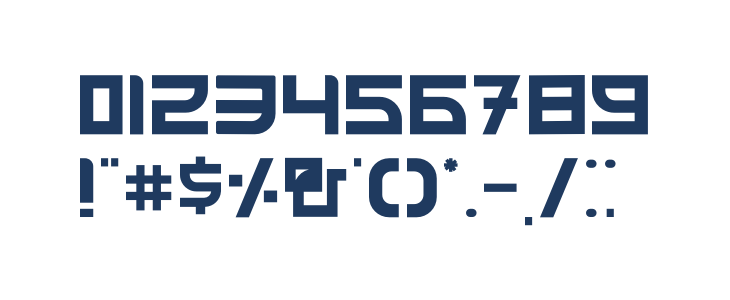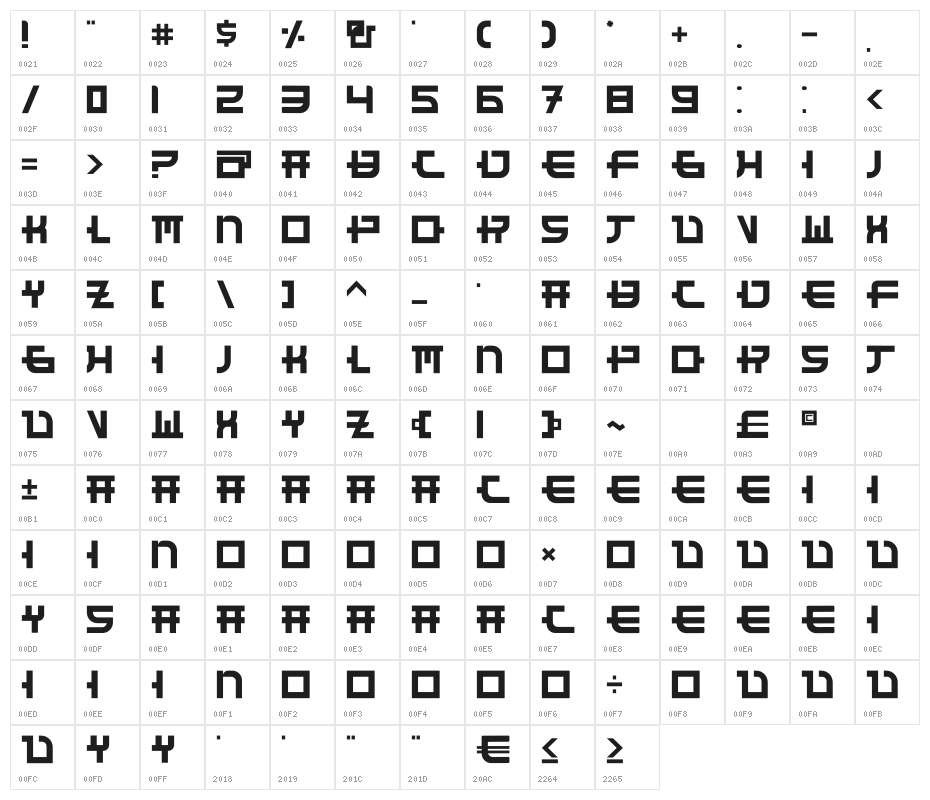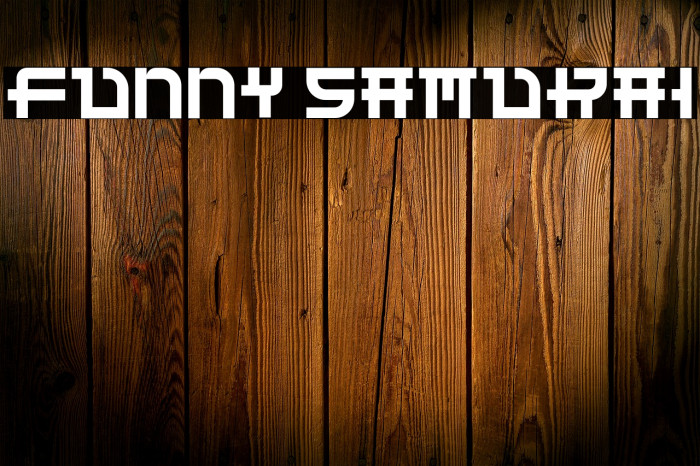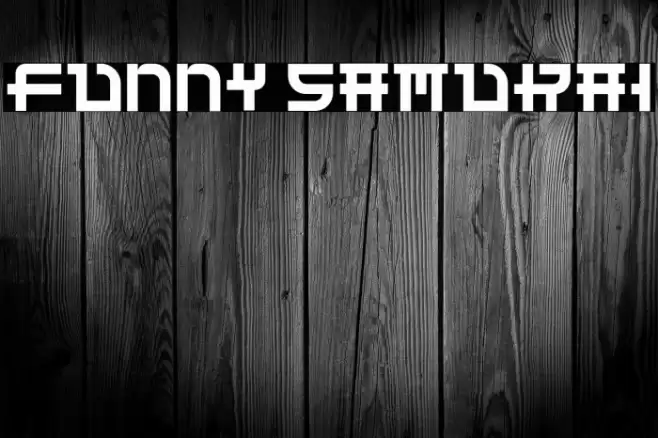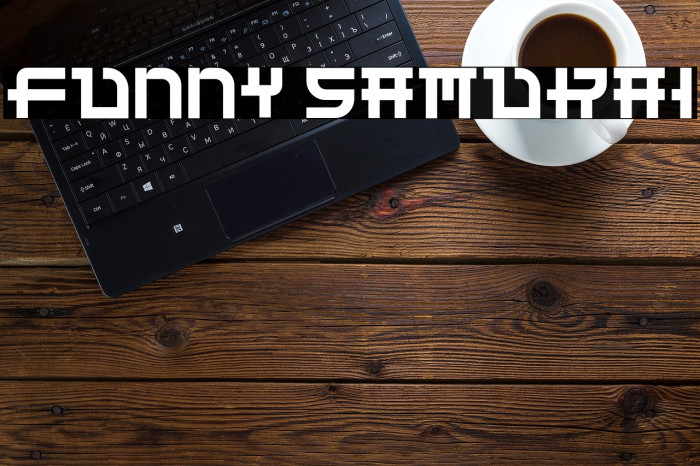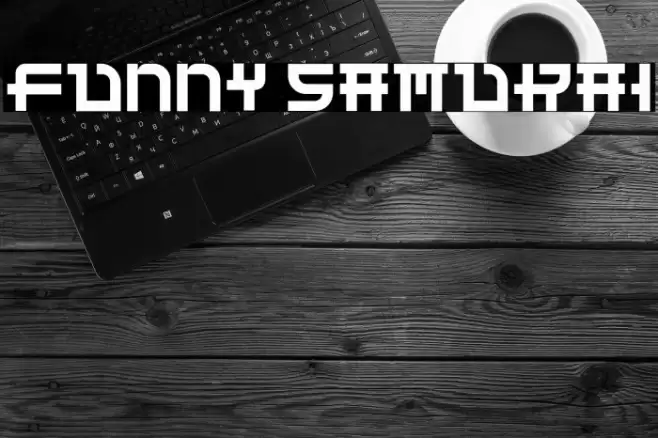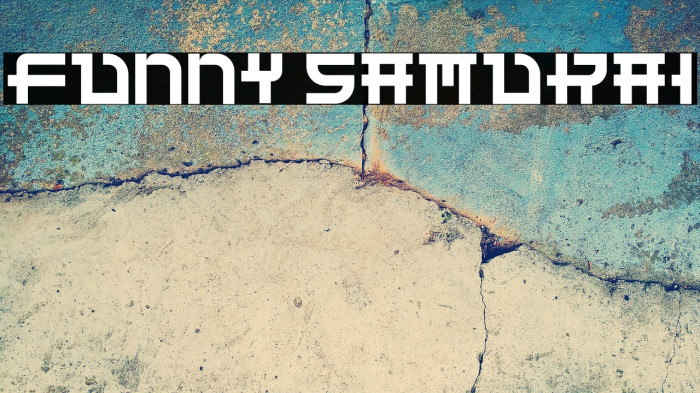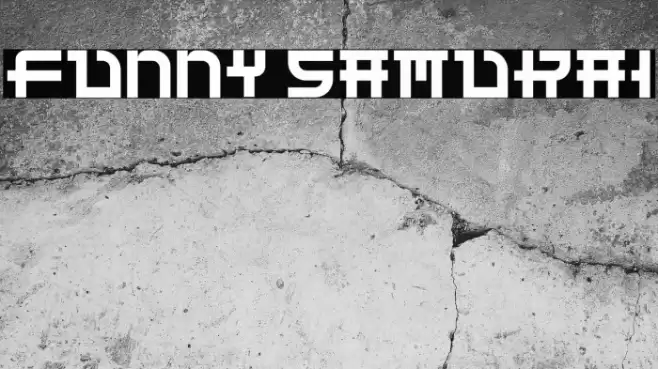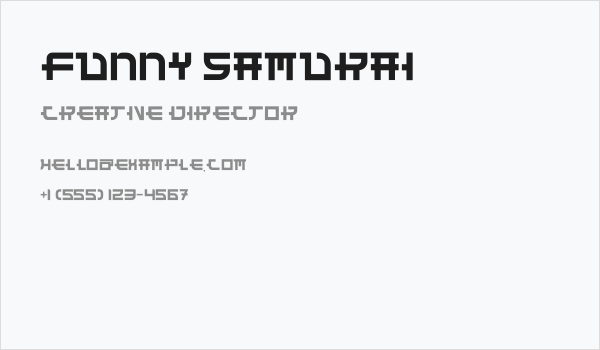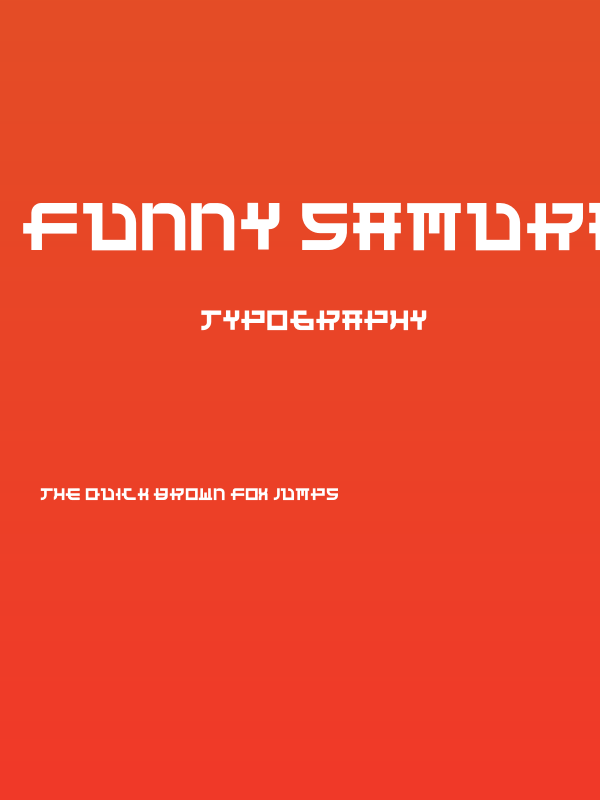
Funny Samurai Font
Funny Samurai Description
This font features a bold and geometric design, characterized by its blocky and angular letterforms. The characters are constructed with thick, uniform strokes, giving them a strong and impactful appearance. The design incorporates sharp edges and straight lines, creating a futuristic and industrial feel. The uppercase and lowercase letters maintain a consistent style, with the lowercase mirroring the uppercase in form. Numbers and special characters follow the same design principles, ensuring a cohesive look across all glyphs. The font's unique style makes it stand out, suitable for projects that require a modern and edgy aesthetic.